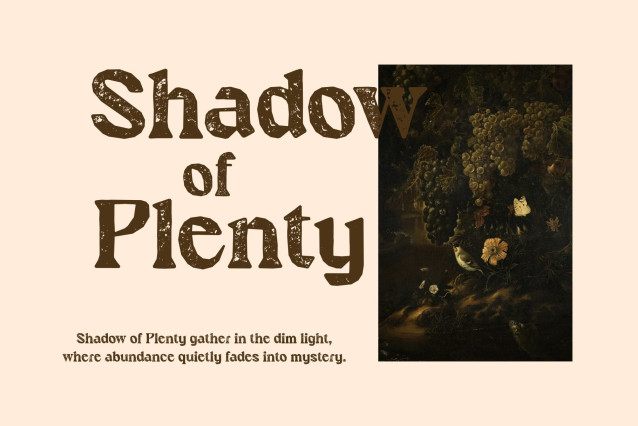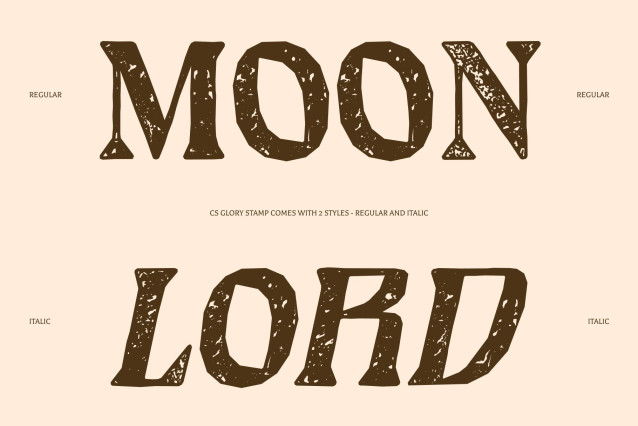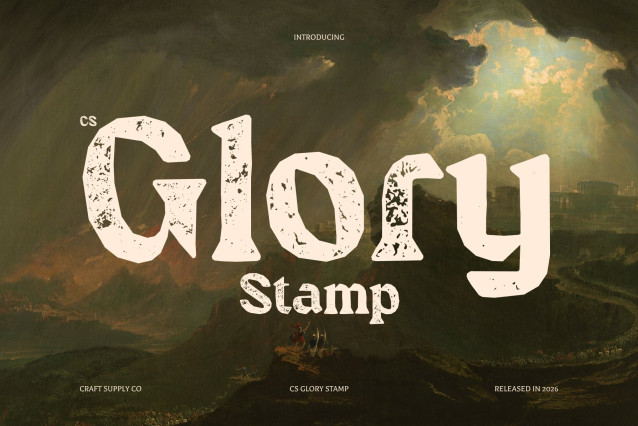
CS Glory Stamp Font
CS Glory Stamp – A Timeless Classic Font with Authentic Vintage Texture
Embrace Nostalgia with Rich Details
This is a classic serif font that beautifully captures a retro and antique atmosphere. Its meticulously crafted letterforms feature elegant curves and sharp angles, now enhanced with a subtle stamp texture that introduces a handcrafted, timeworn character. The result is a typeface that feels nostalgic, refined, and visually captivating.
Ornate Serifs with Vintage Print Appeal
The bold, decorative serifs are a defining feature of this font, bringing sophistication and warmth to every composition. The added stamp effect introduces gentle imperfections and tactile detail inspired by traditional printmaking, enhancing its old-world charm and creating the impression of authentic vintage typography.
Stamp Texture for Depth and Character
The stamped finish gives the font an artistic, slightly worn texture that evokes classic letterpress and ink-stamped designs. This layered character adds depth and personality, making the typeface feel expressive, historic, and full of craftsmanship.